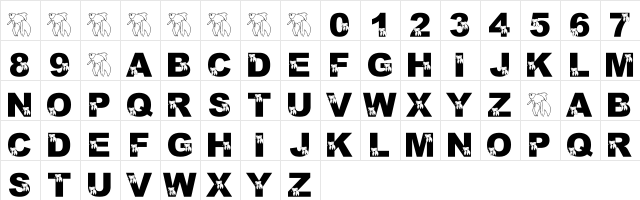
LMS Master Beta Mike Regular Font Preview
LMS Master Beta Mike Regular
Design Context for LMS Master Beta Mike Typeface
LMS Master Beta Mike is a composed and adaptable typeface that performs quietly and consistently across a wide range of design contexts.